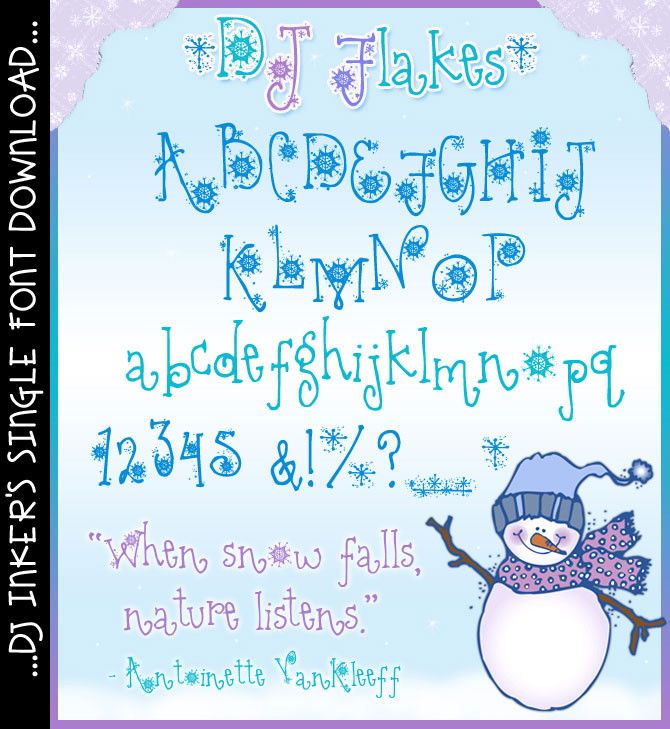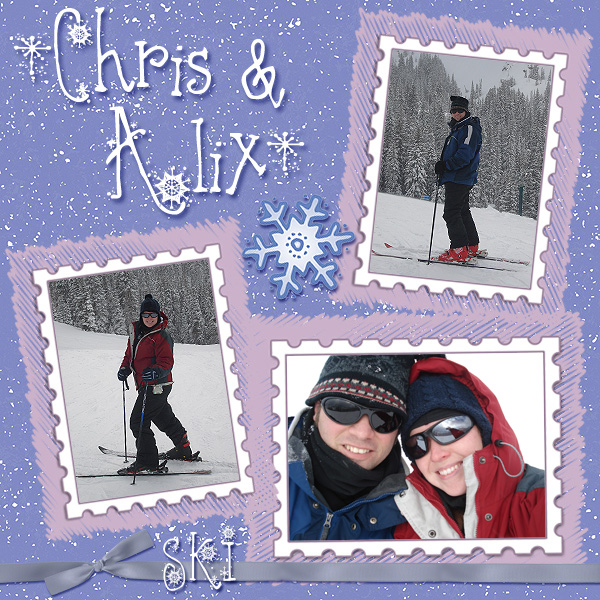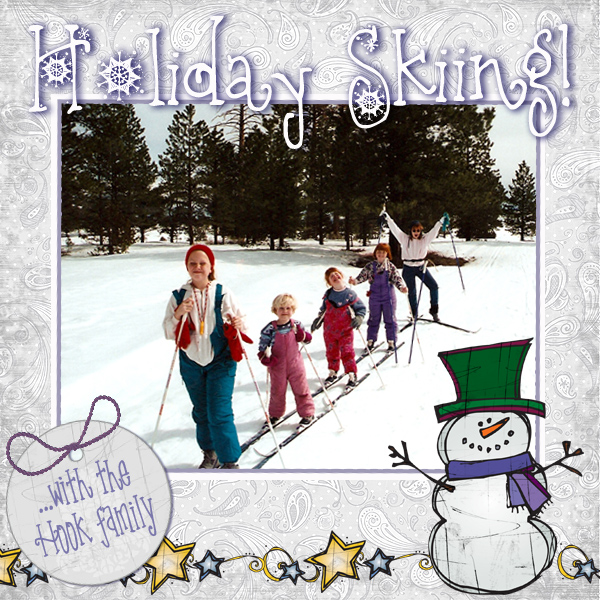
DJ Flakes is a whimsical, delicate winter font that's sure
to blow a blizzard of smiles into all of your cool, seasonal projects!
This lovely snowflake lettering is perfect for crafting, scrapbooking,
holiday gifts, winter newsletters & more!
This headline font (looks best big) does beautifully in any cool color. Easy